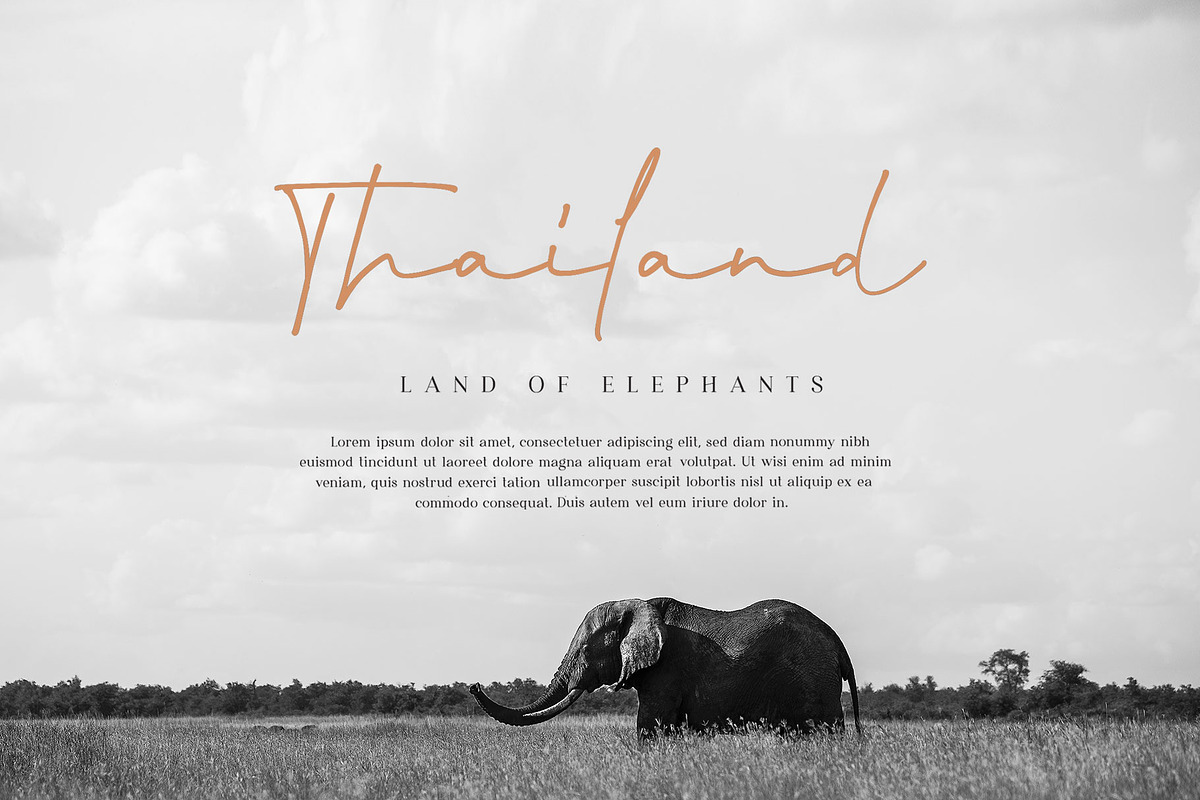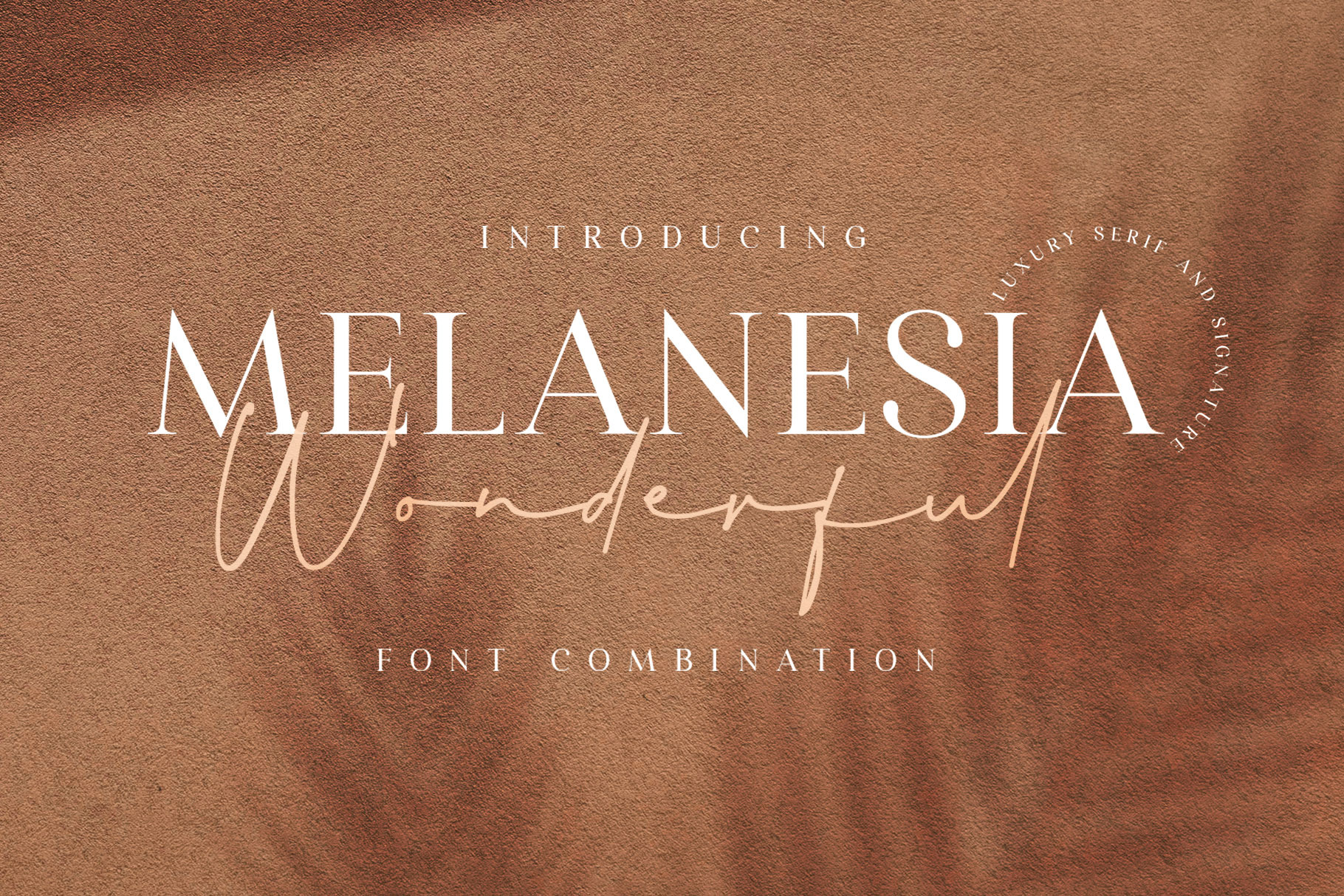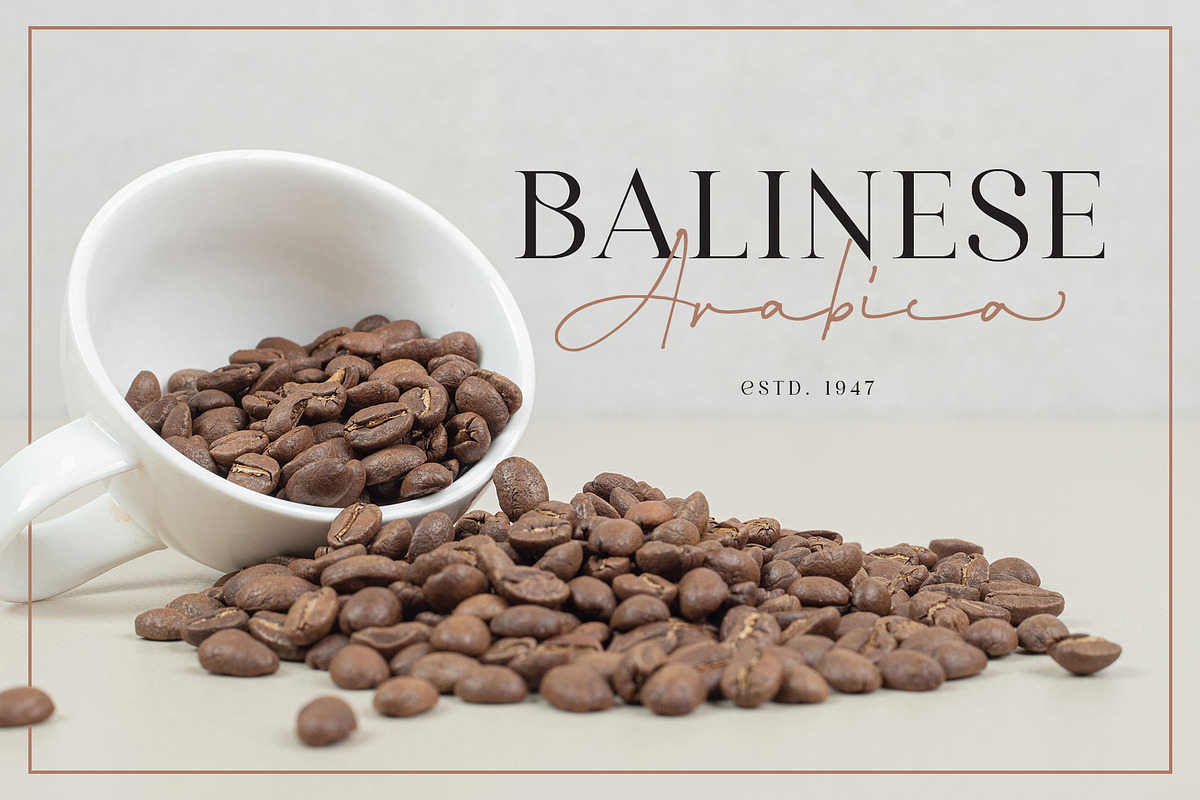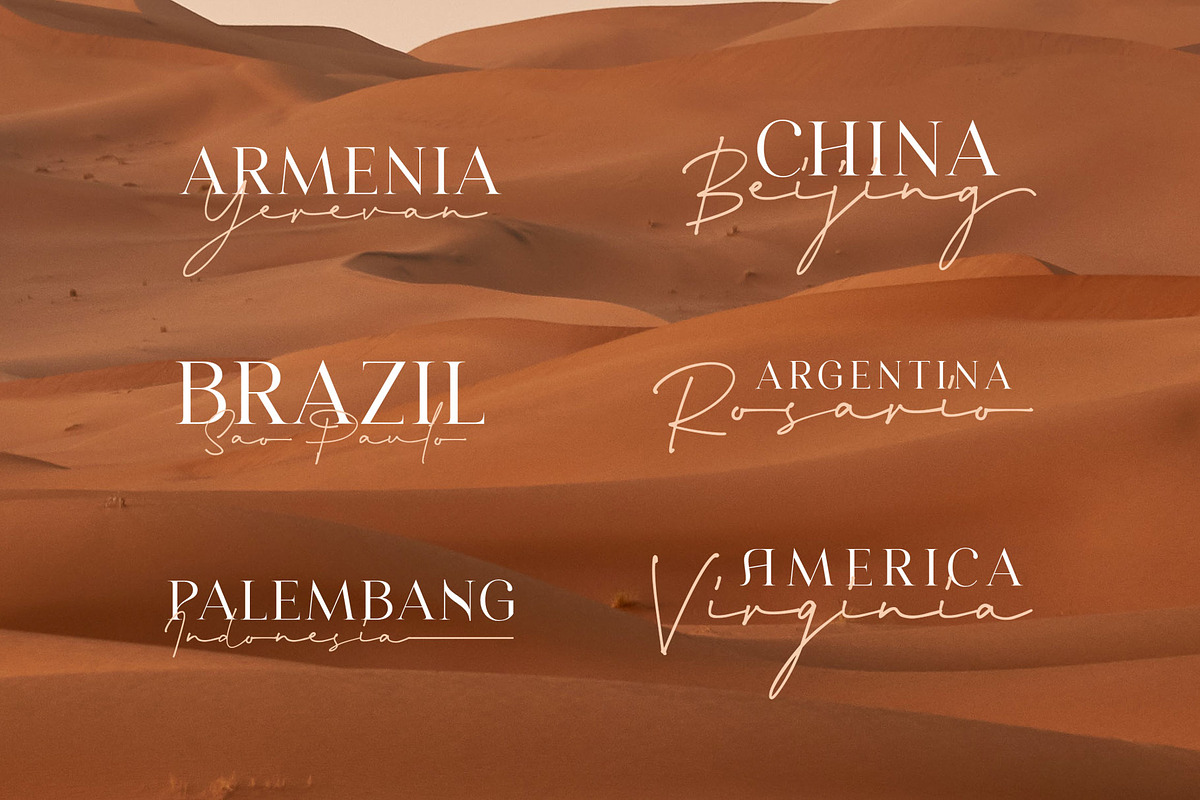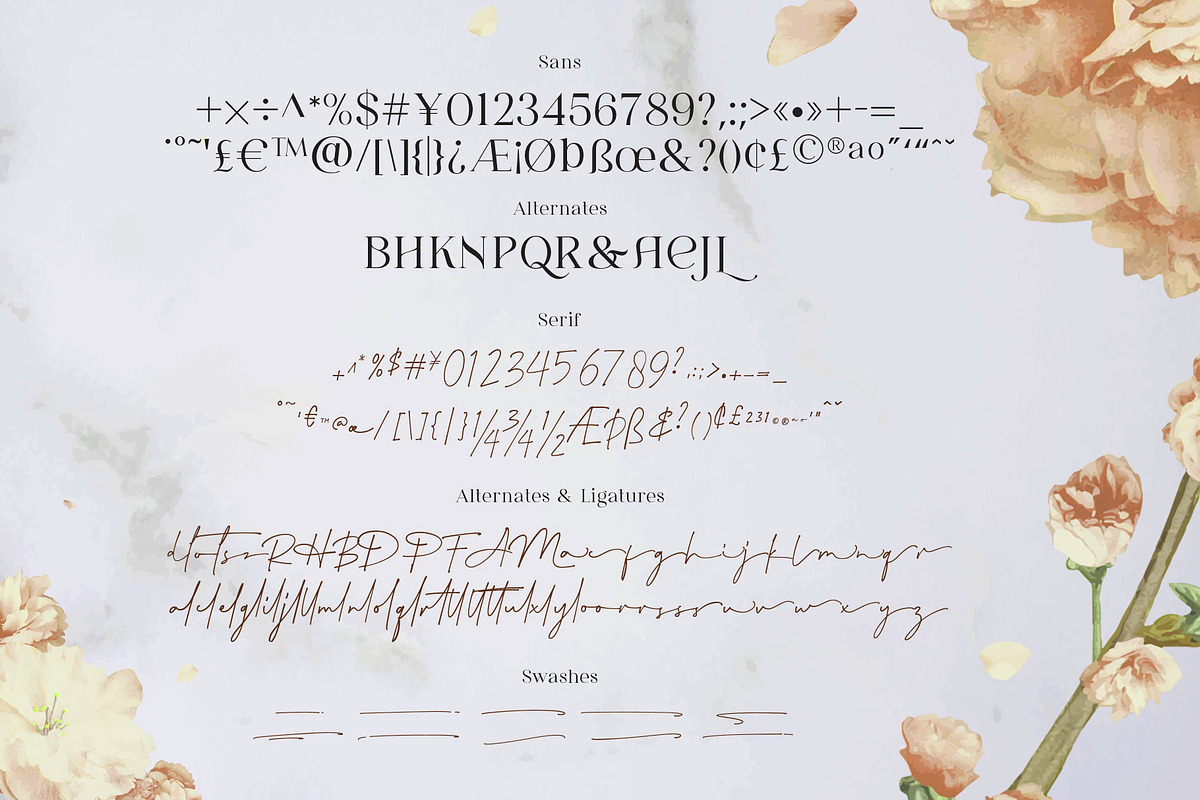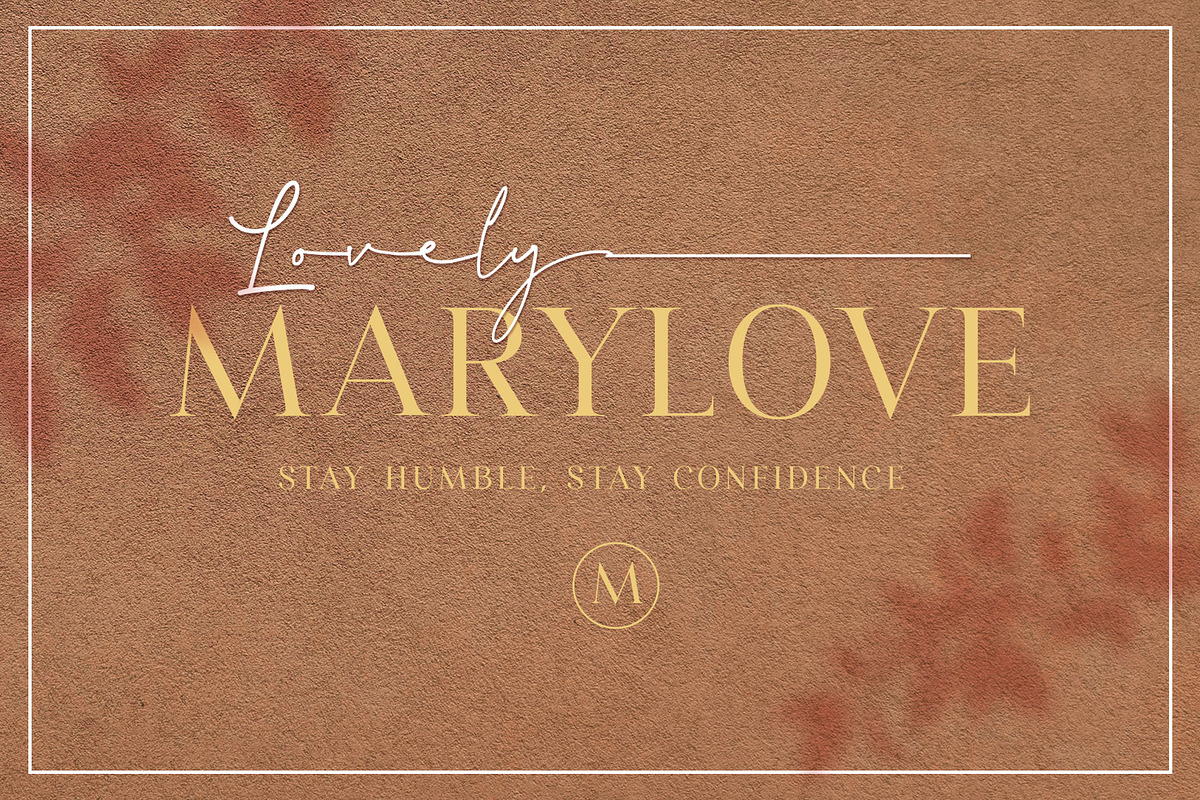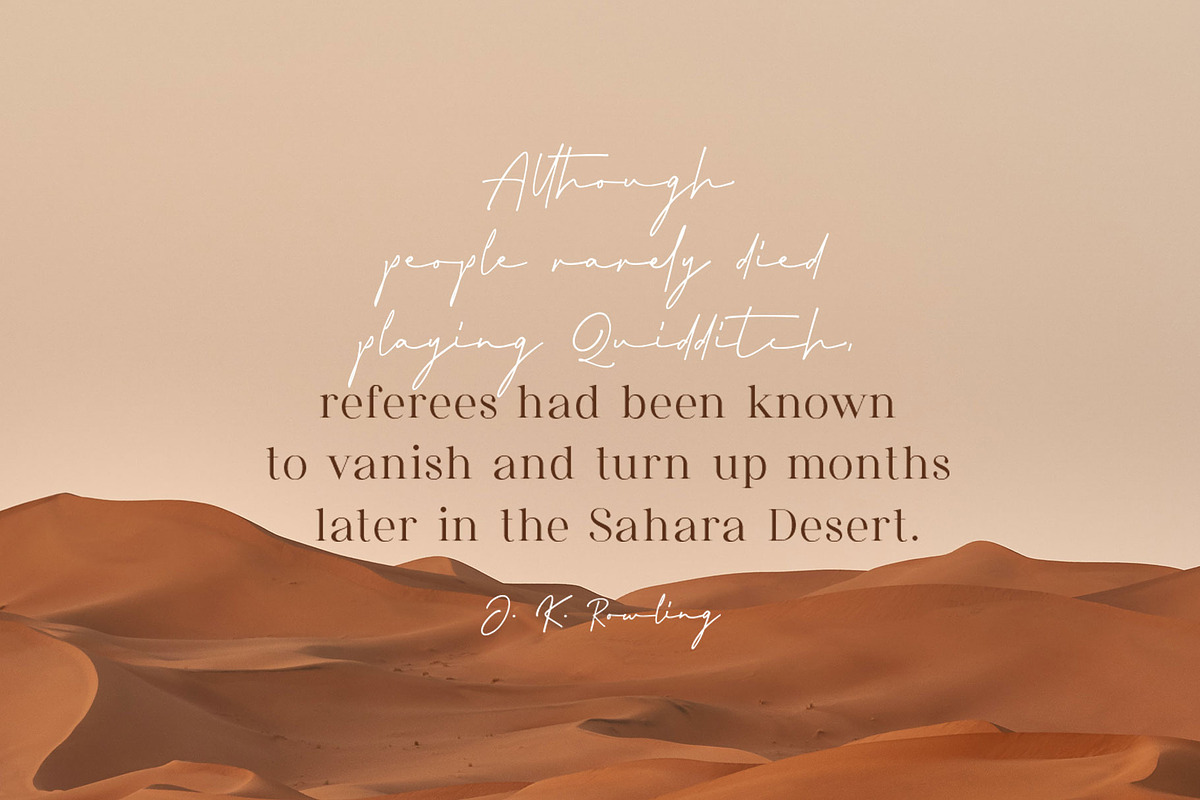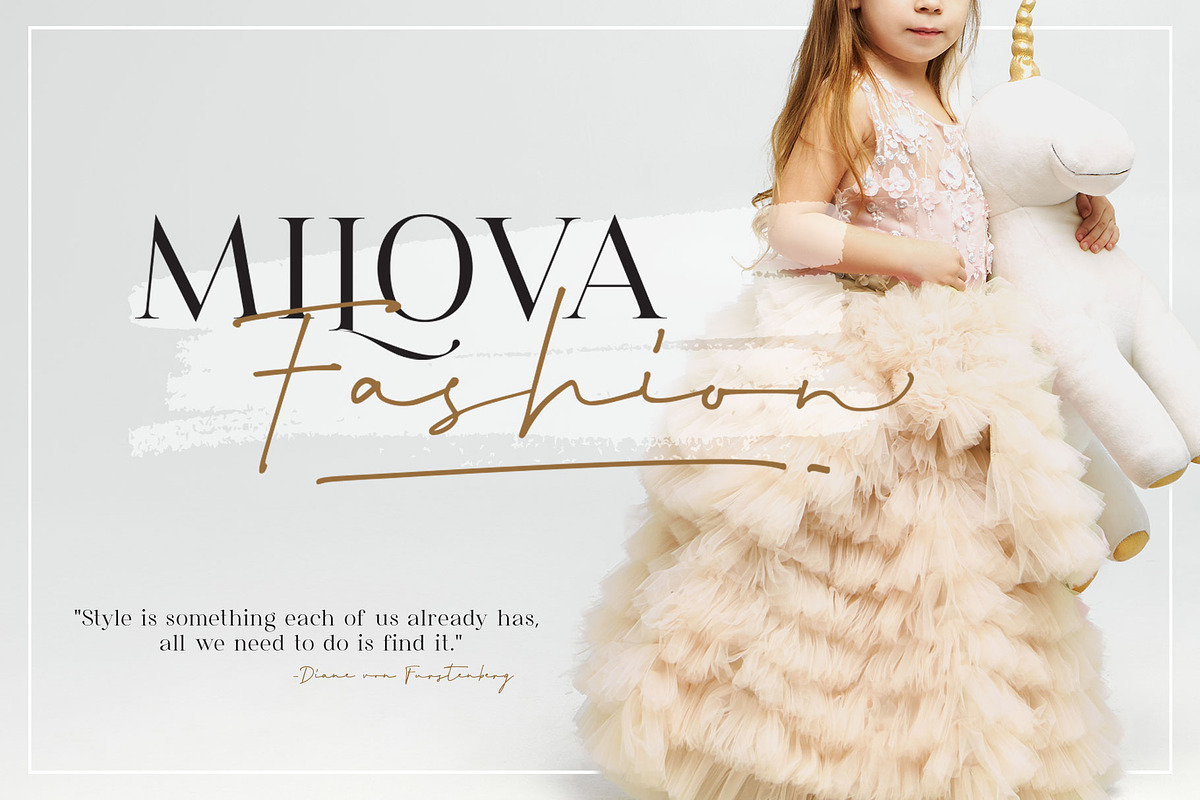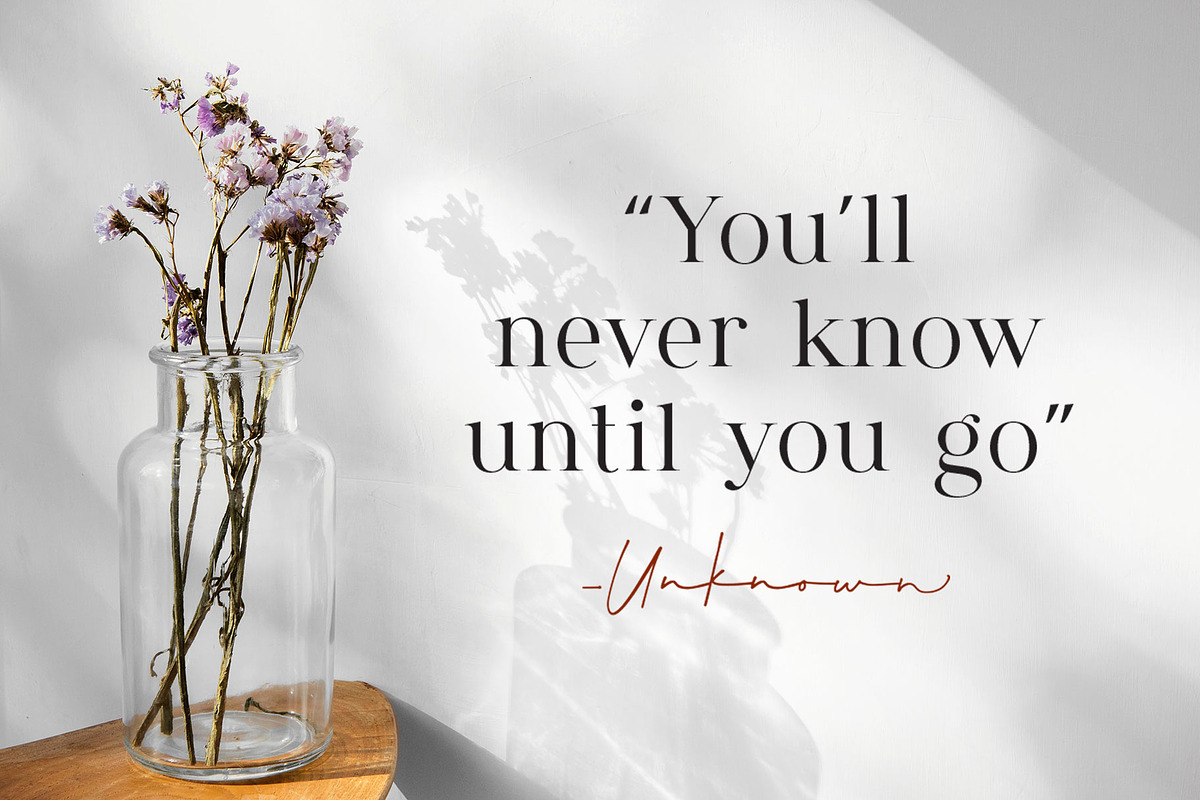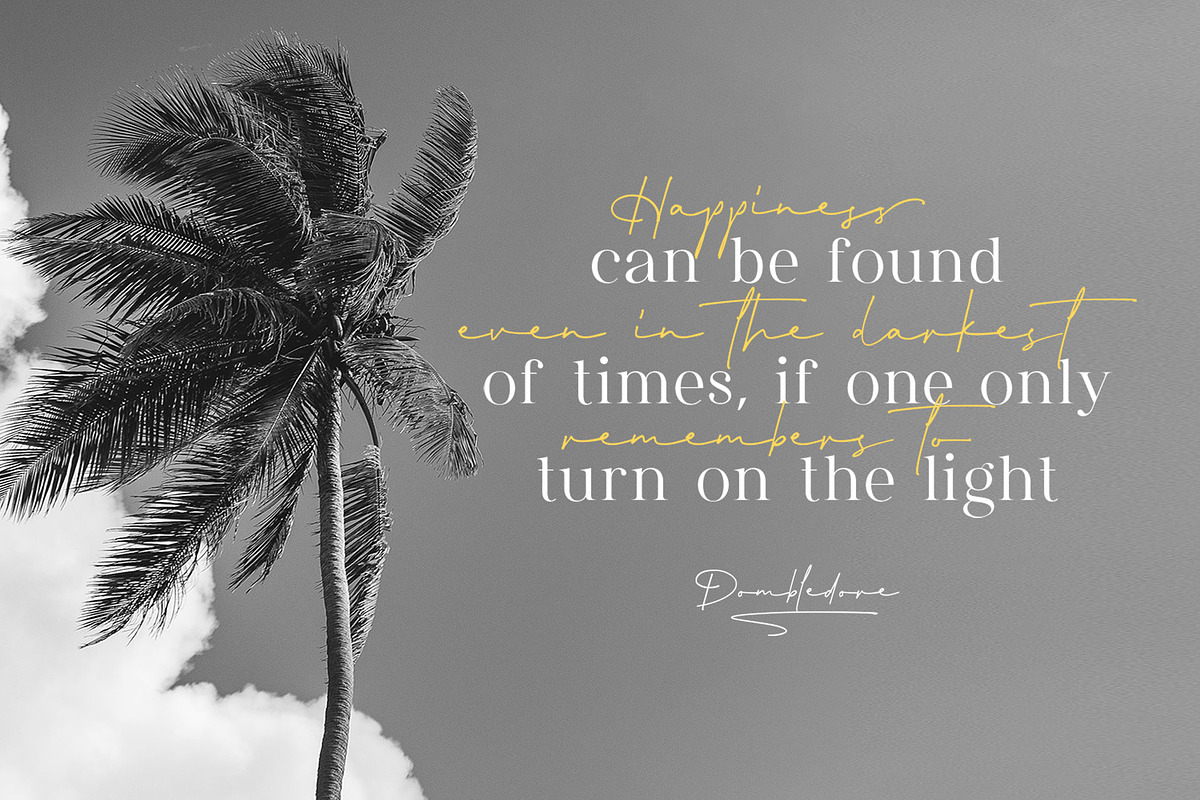
Wonderful Melanesia - Font Duo
Say hello to Wonderful Melanesia. A fancy font combination, minimalist signature, and elegant serif. These fonts are carefully designed with attention to every detail of the letterforms, which makes the perfect font combination that you can apply for your design that needs an elegant touch, classy looks, and minimalist.
The serif font is designed with a few spacing so that it provides more clarity when reading it, and the signature font designed with dynamic strokes that give it the more natural handwriting. Wonderful Melanesia has equipped with many OpenType features. There are beautiful ligatures, Stylistic alternates, and swashes which you can use it to get your design more softly.
Fonts featured :
- Punctuation & symbols
- Stylistic alternates
- Accented characters : ÀÁÂÃÄÅÆÇÈÉÊËÌÍÎÏÐÑÒÓÔÕÖØÙÚÛÜÝÞßàáâãäåæçèéêëìíîïñòóôõöøùúûüýþÿıŁłŒœŠšŸŽž